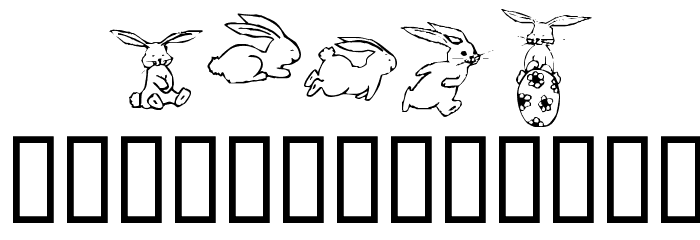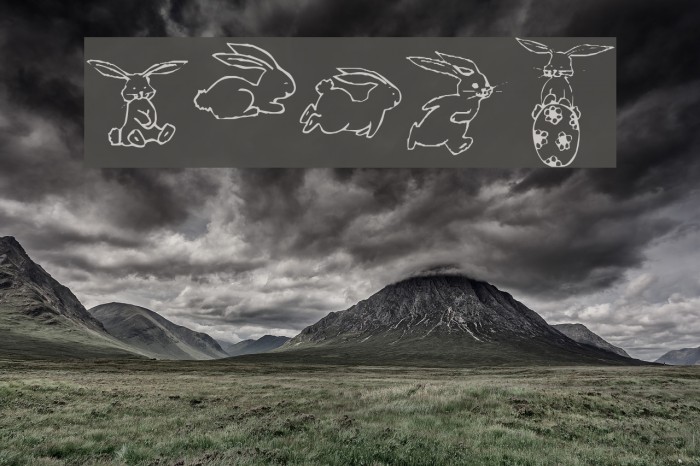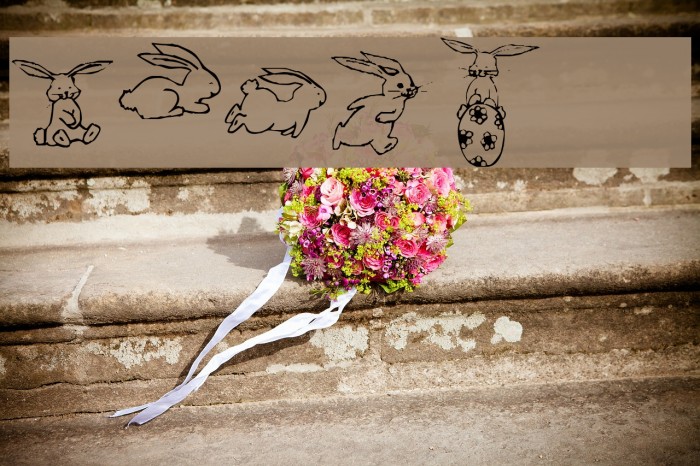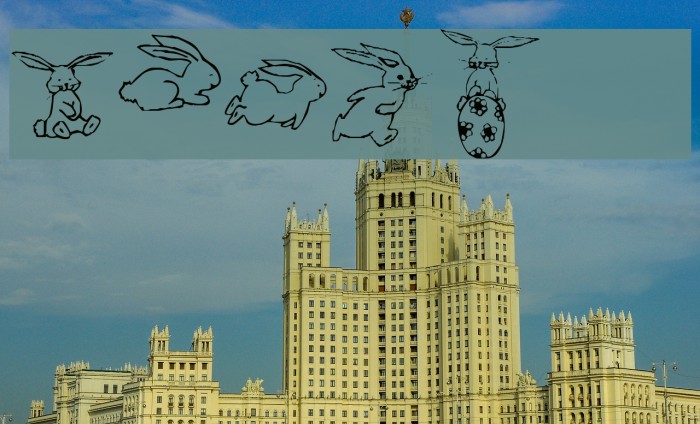
KR Five Bunnies Font
This is not a traditional font but rather a decorative set of illustrations featuring playful bunnies in various poses. Each character is represented by a unique bunny design, adding a whimsical and charming touch. The bunnies are depicted in a cartoonish style, with soft lines and expressive features, making them suitable for creative and playful projects. The designs are consistent in style, providing a cohesive look across the set.
A decorative set of bunny illustrations in a playful, cartoonish style.
- Proposed Projects: Ideal for children's book illustrations, Easter-themed designs, greeting cards, and playful branding materials.
- Overall Style: Playful, Whimsical
- Use Case: Decorative illustrations, not suitable for text.